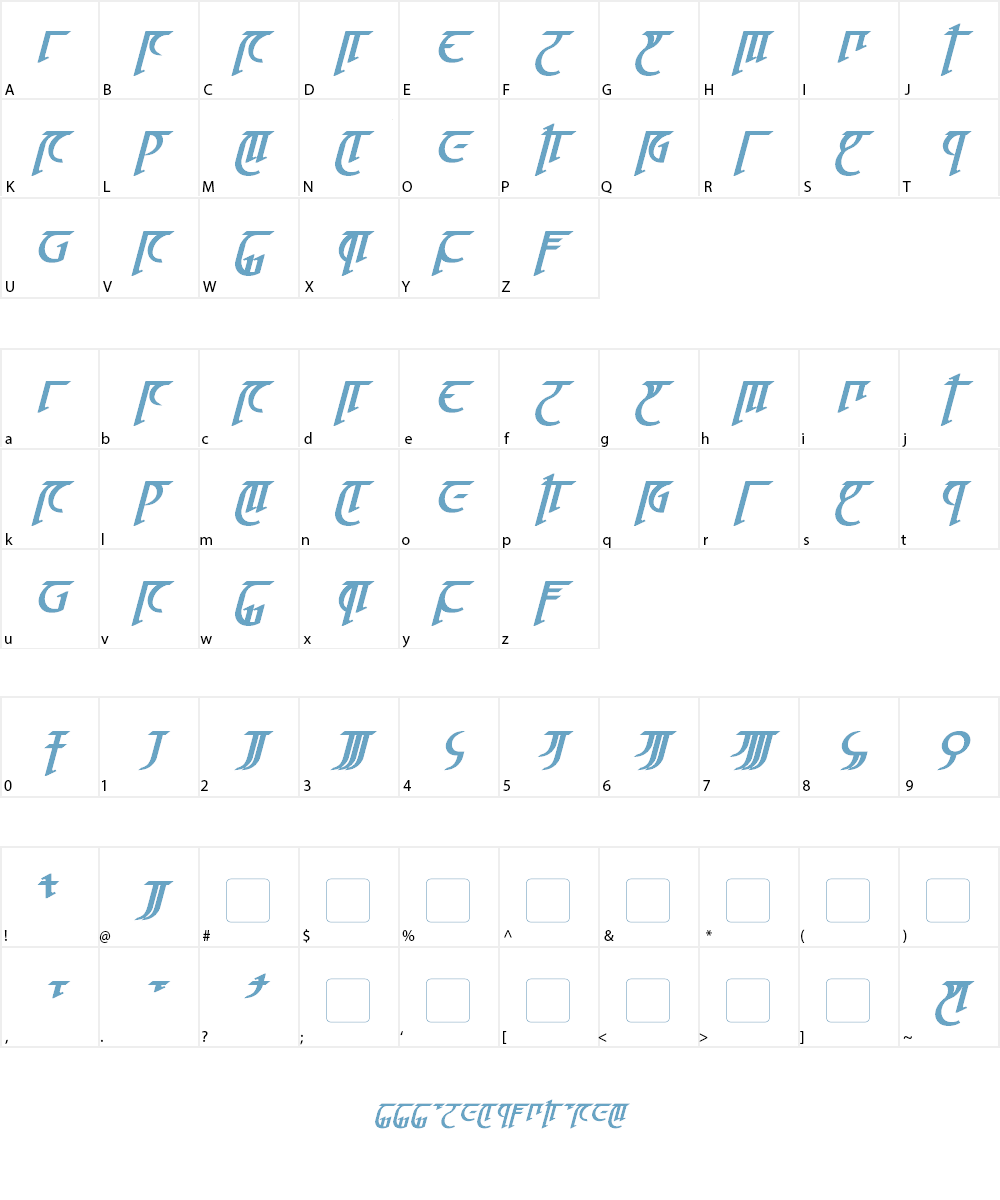
High Drowic is a heavily stylized runic typeface based on the language described in Wizards of the Coast Forgotten Realms product line. This is basically a reworking of Espruar with heavy influence of Abyssal and some Throass-based updates. Includes canon characters. Includes bold, italic, and bold-italic weights.